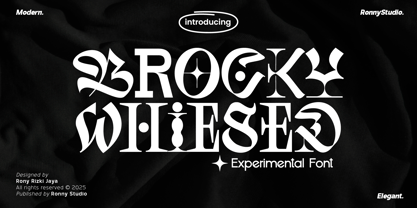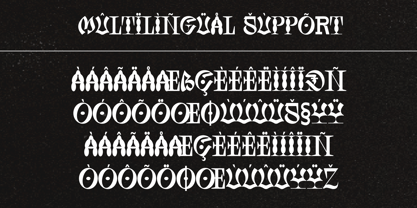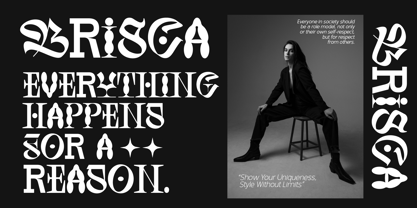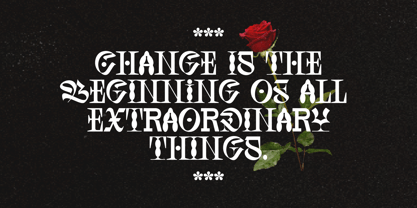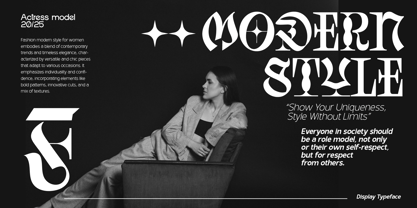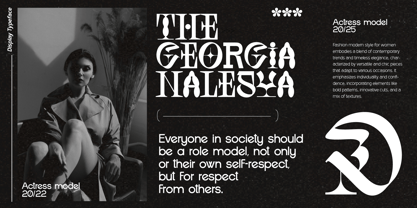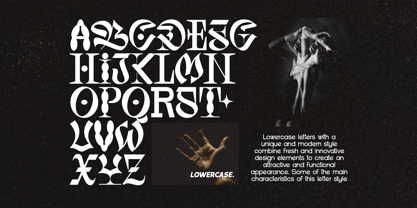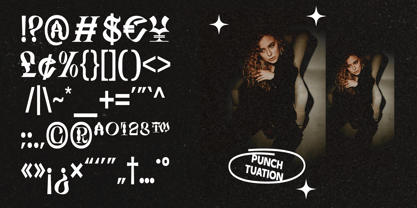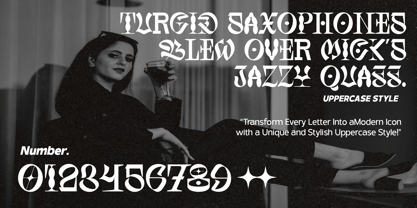
Brocky Whiesed
by Ronny Studio
The Brocky Whiesed Font Family was designed by Rony Rizki Jaya and published by Ronny Studio. Brocky Whiesed contains 1 styles. More about this family
🚀 Brocky Whiesed is an experimental font designed with a modern, elegant, and artistic touch. This font blends classic elements with futuristic details, making it perfect for eye-catching designs.